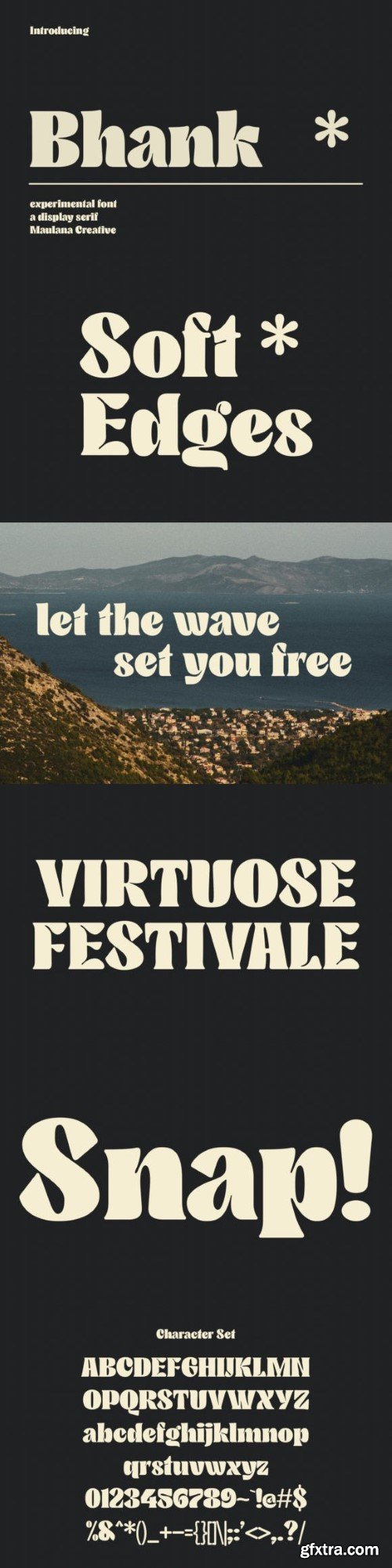
Bhank is an experimental serif display font. Bold stroke, a fun character with a bit of ligature. To give you extra creative work. This font is good for logo design, Social media, Movie Titles, book titles, short text even long text letters, and good for your secondary text font with script or serif. Make a stunning work with Bhank font.